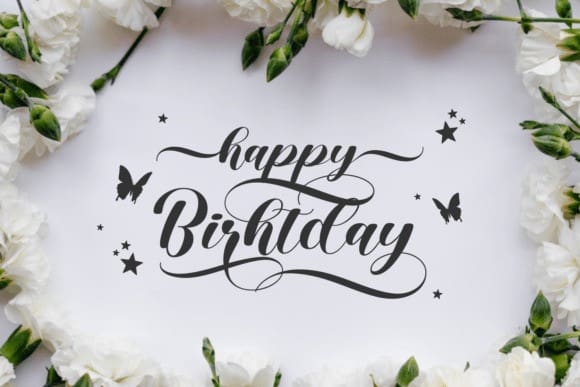
Marshena Font
Marshena Font is a sweet and elegant handwritten font suitable for your most creative projects! Add it to wedding invitations, birthday cards, thank you notes, or anything else.